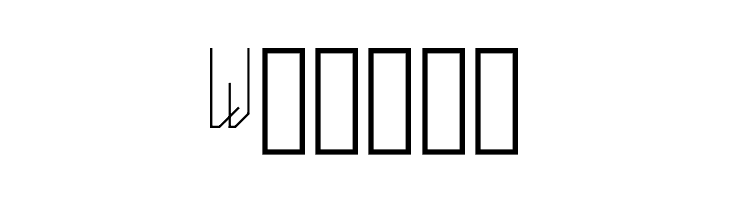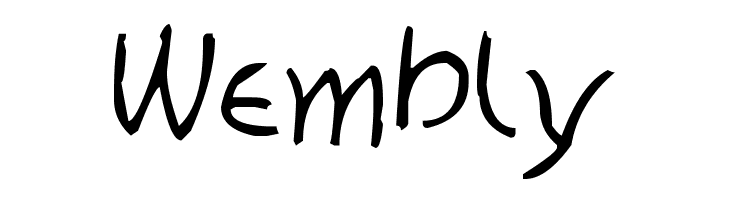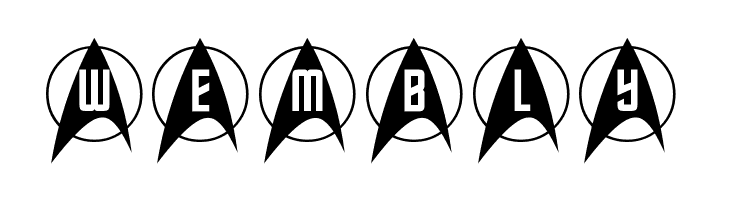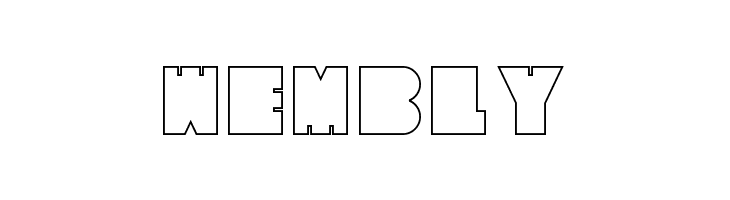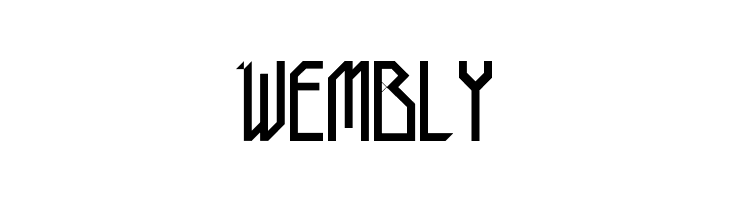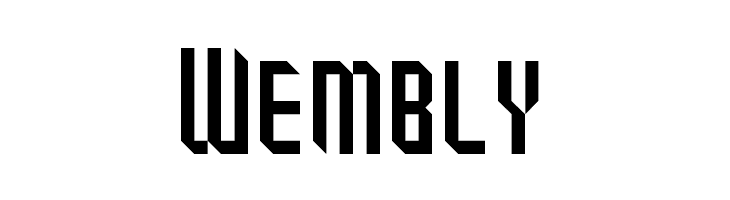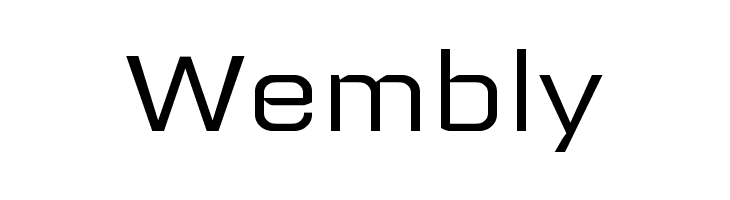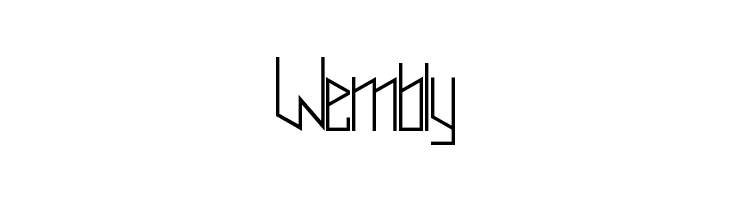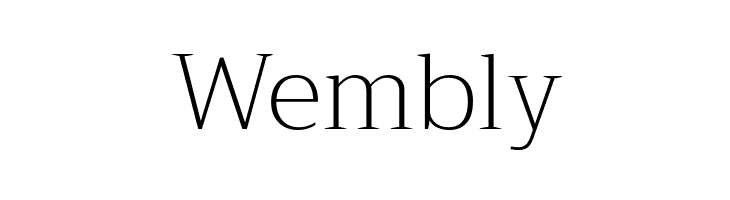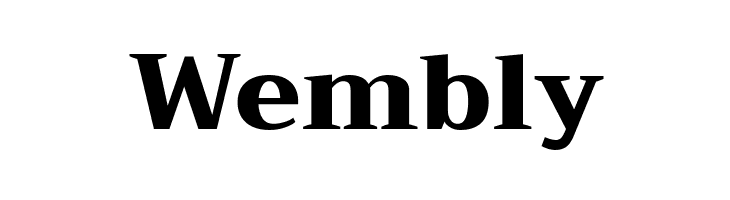
A bold, geometric font with characters enclosed in arrowhead shapes, perfect for futuristic themes.
A futuristic, geometric font with sharp, angular lines and a digital aesthetic.
A clean, structured serif font with medium contrast and excellent readability.
A bold, angular font with a futuristic and edgy design.
A playful, tribal-inspired font with irregular, hand-drawn strokes.
A geometric, futuristic font with sharp angles and a minimalist style.
A geometric, angular font with a bold, futuristic style.
A bold, geometric font with a futuristic and modern design.
A bold, authoritative serif typeface with strong, thick strokes and pronounced serifs.
A bold, italic serif font with high contrast and elegant style.
A bold serif font with strong strokes and elegant serifs, ideal for authoritative text.
A bold, italic serif font with moderate contrast and elegant style.
A bold, classic serif font with strong, defined strokes and elegant serifs.
A bold, italic serif font with a classic and elegant style.
A refined serif font with thin strokes and elegant proportions.
A graceful and elegant serif font with a subtle italic slant.
An elegant serif italic font with smooth curves and a classic style.
A classic serif font with elegant strokes and balanced proportions.
A light, elegant serif font with an italic style, perfect for sophisticated designs.
A modern serif font with elegant, balanced letterforms and pronounced serifs.
A medium-weight, italic serif font with elegant, slanted characters.
A classic serif font with elegant strokes and timeless appeal.
A classic serif font with a semi-bold weight, combining elegance and readability.
A semi-bold, italic serif font with a classic and elegant style.
A thin, elegant serif font with high contrast and sharp serifs.
A thin, italic serif font with elegant, refined strokes and classic styling.
A bold, geometric font with a retro, angular design.